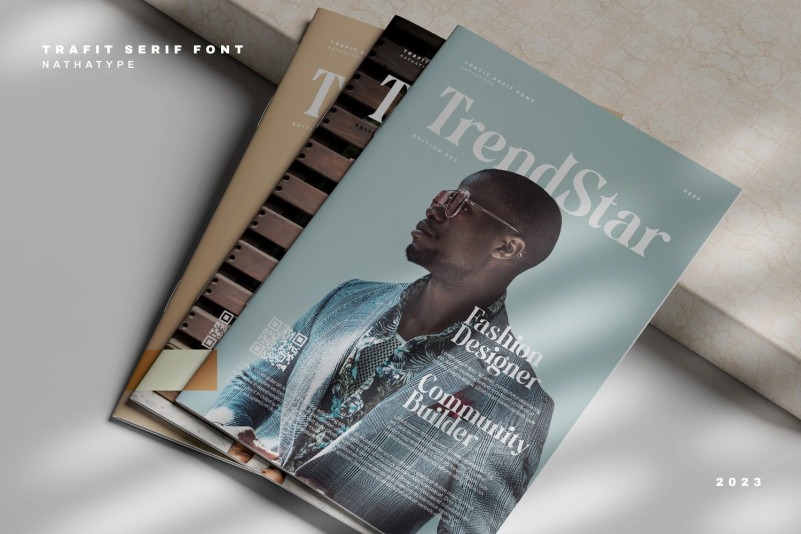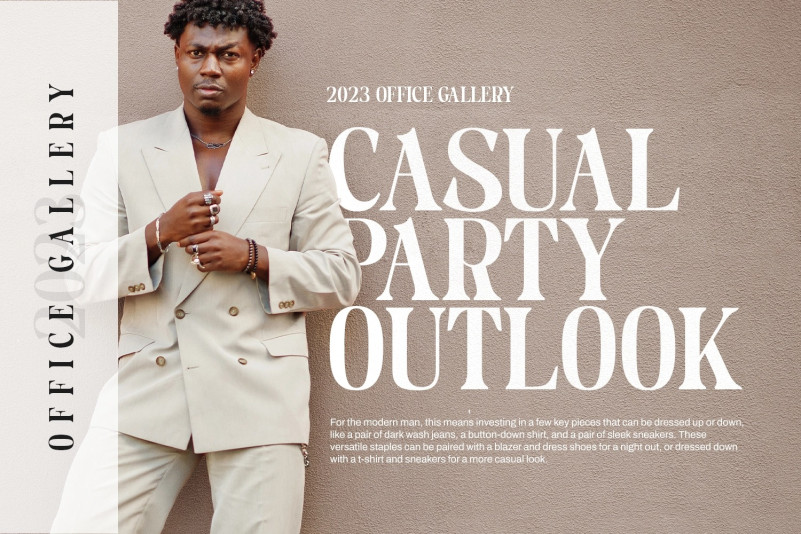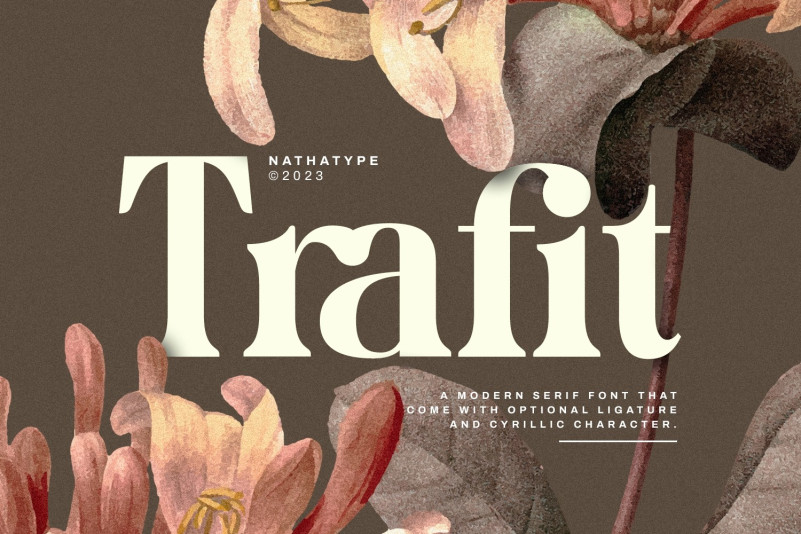
Trafit Font
How outstanding! Trafit Serif Font , a perfect font to show luxury, class, and eternity. Trafit is an outstandingly designed stylish serif font. Its soft, clean lines and indentations show elegant impressions for your prominent designs. Its letter edges have hooks like the other serif fonts. The simple shapes and even sizes help to make it legible. Due to the great legibility, this font is applicable for any text sizes and length. In addition, you can enjoy the features available here.